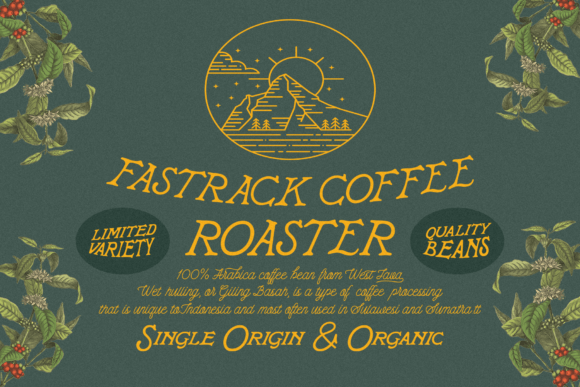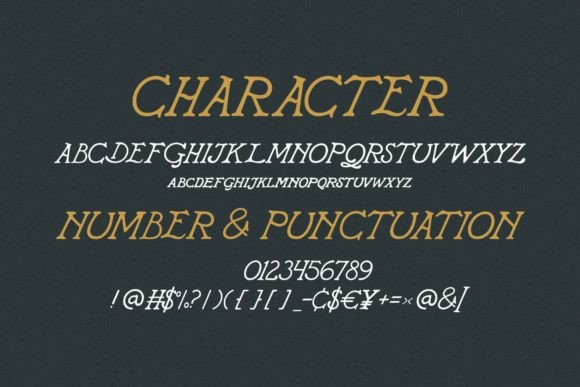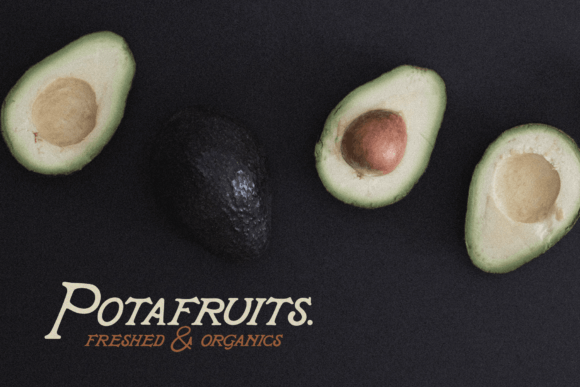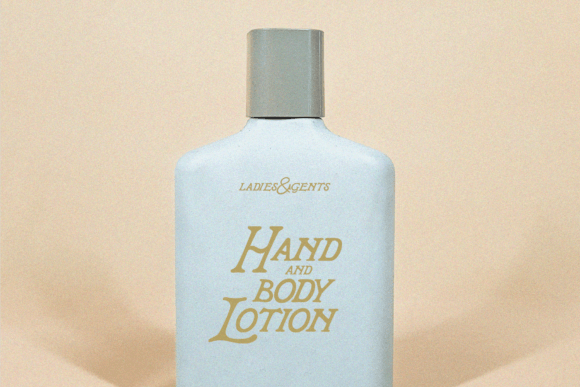
Introduction to Sherdan Font
Sherdan is a 70’s style hand-drawn retro serif.
Sherdan would be perfect for display needs such as signage, poster, logo, label, headline, cover design, etc .
Key Features of Sherdan Font